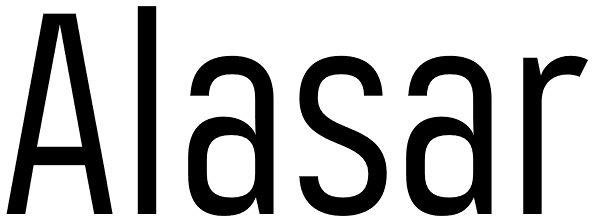
Alasar
Alasar is a headline face designed for magazines, newspapers, etc. It could easily work for signage, corporate as well as for editorial design. Includes four weights in roman. Alasar comes in OpenType format.